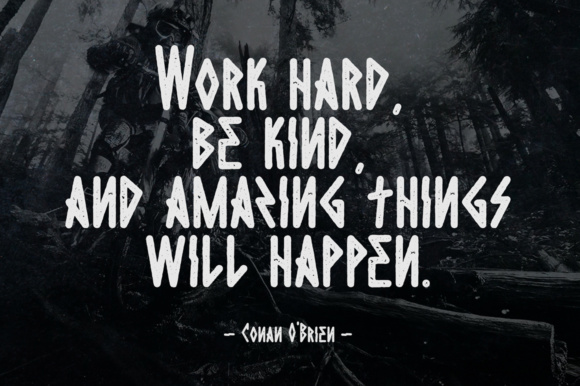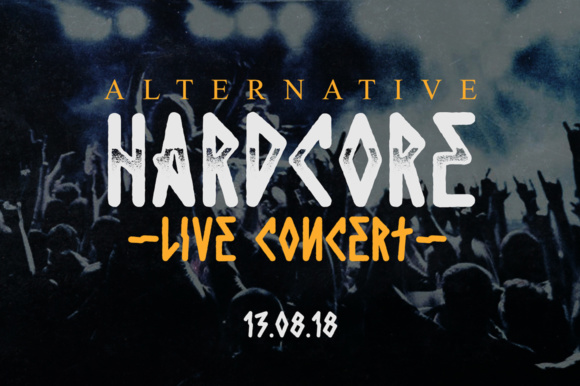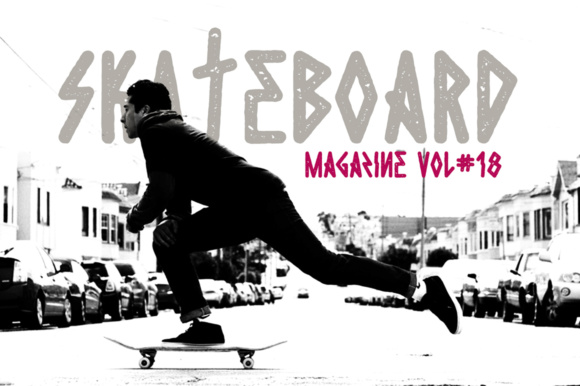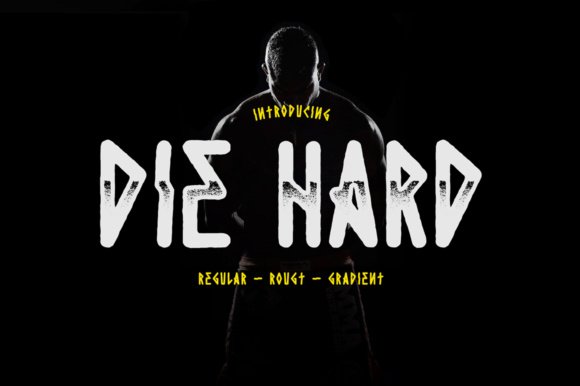
Introduction to Die Hard Font
Die Hard is a cool, edgy display font that will give your designs a distinct and different style.
This font comes in different styles, so you can mix and match them for unique looking, tough typography .